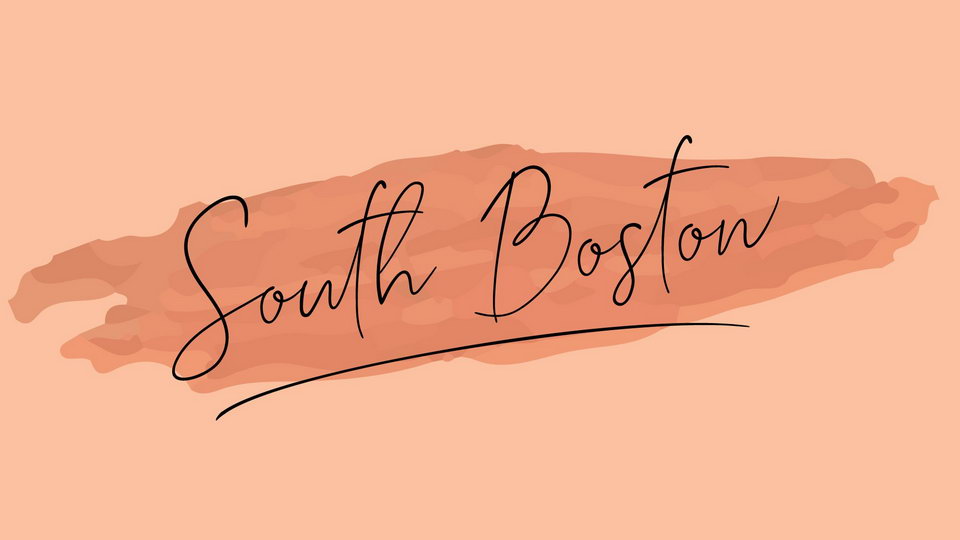
Download South Boston font, an elegant realistic handwritten script with a dancing baseline stylish. It looks natural, classy and perfect for any awesome project that need hand writing taste.
Designer: amin mario